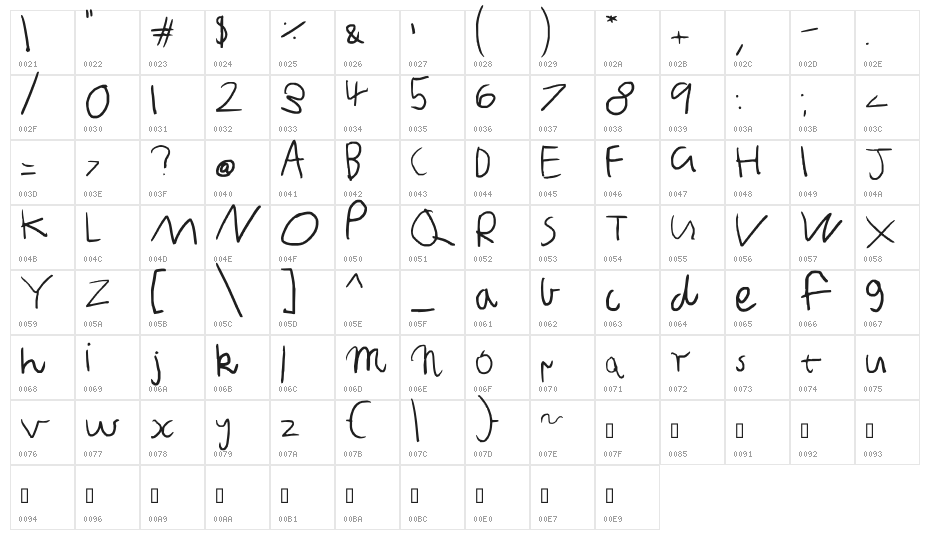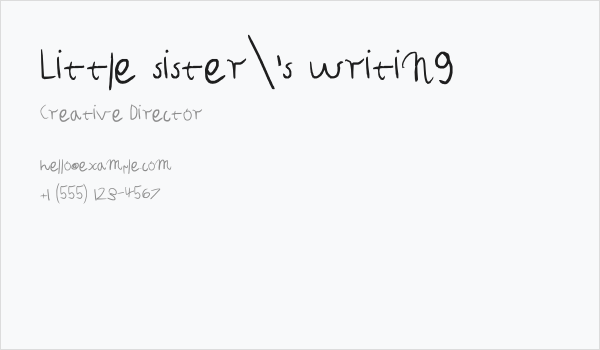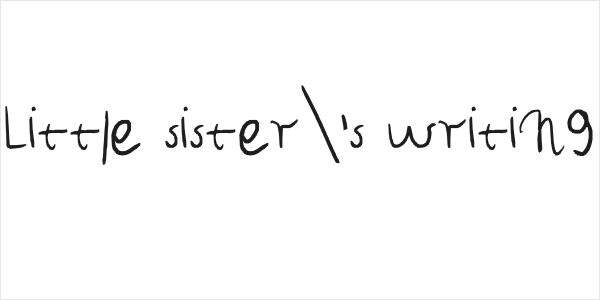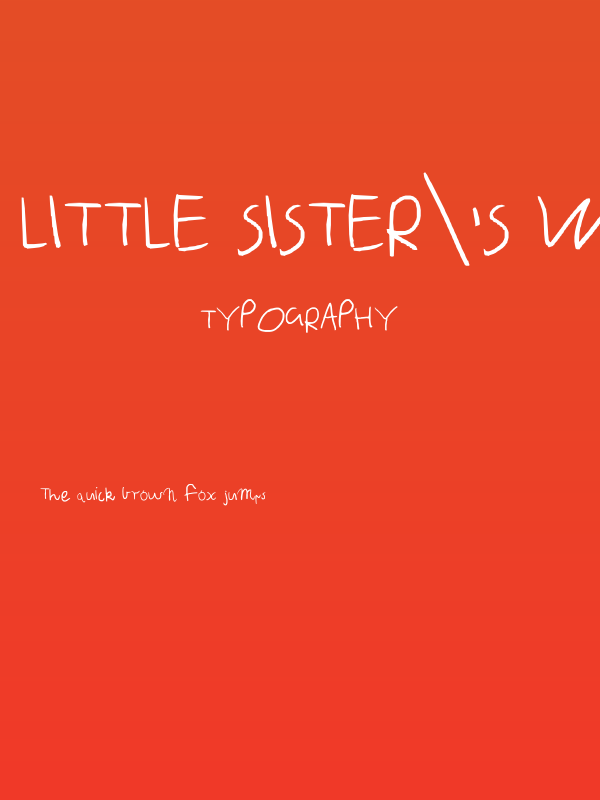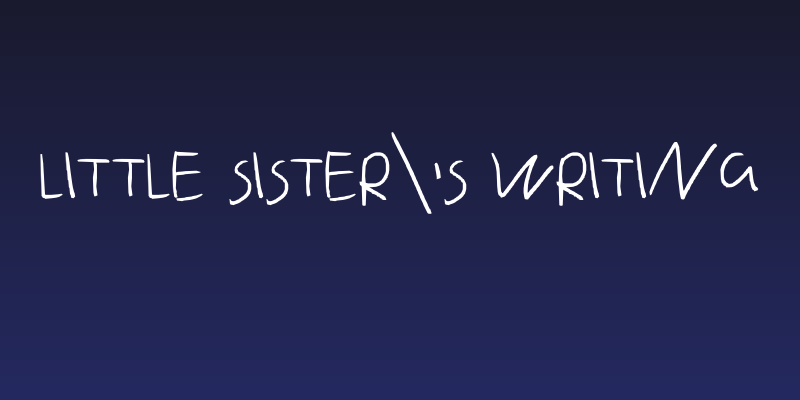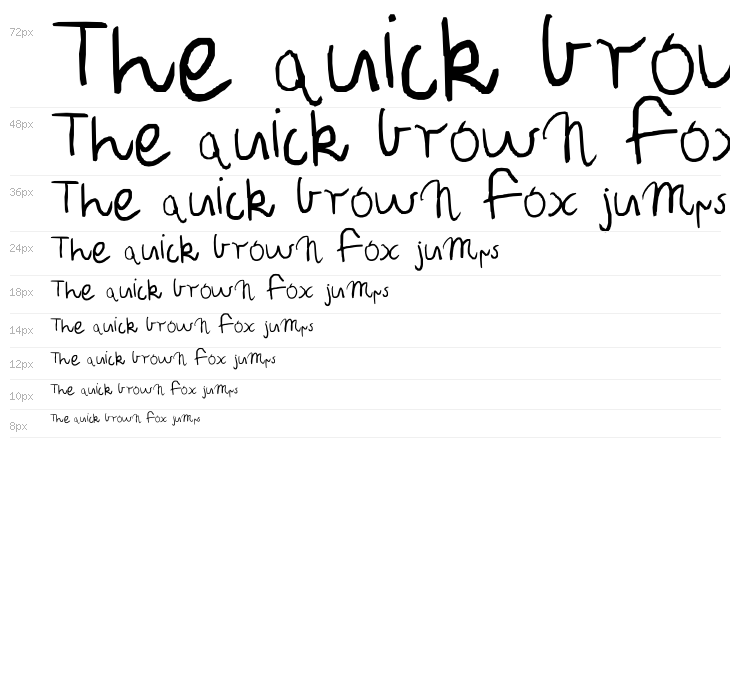
Little sister's writing Font
Little sister's writing Description
This playful and whimsical font mimics the spontaneous and carefree style of a child's handwriting. The characters are uneven and slightly irregular, giving it a charmingly imperfect look. The strokes vary in thickness, adding to the hand-drawn feel. The uppercase letters are bold and prominent, while the lowercase letters maintain a consistent flow with a slightly more compact appearance. Numbers and special characters follow the same playful aesthetic, making the font versatile for informal and creative projects. Its overall appearance is casual and friendly, perfect for adding a personal touch to any design.
| Proposed Projects | Ideal for children's books, playful branding, greeting cards, and informal invitations. |